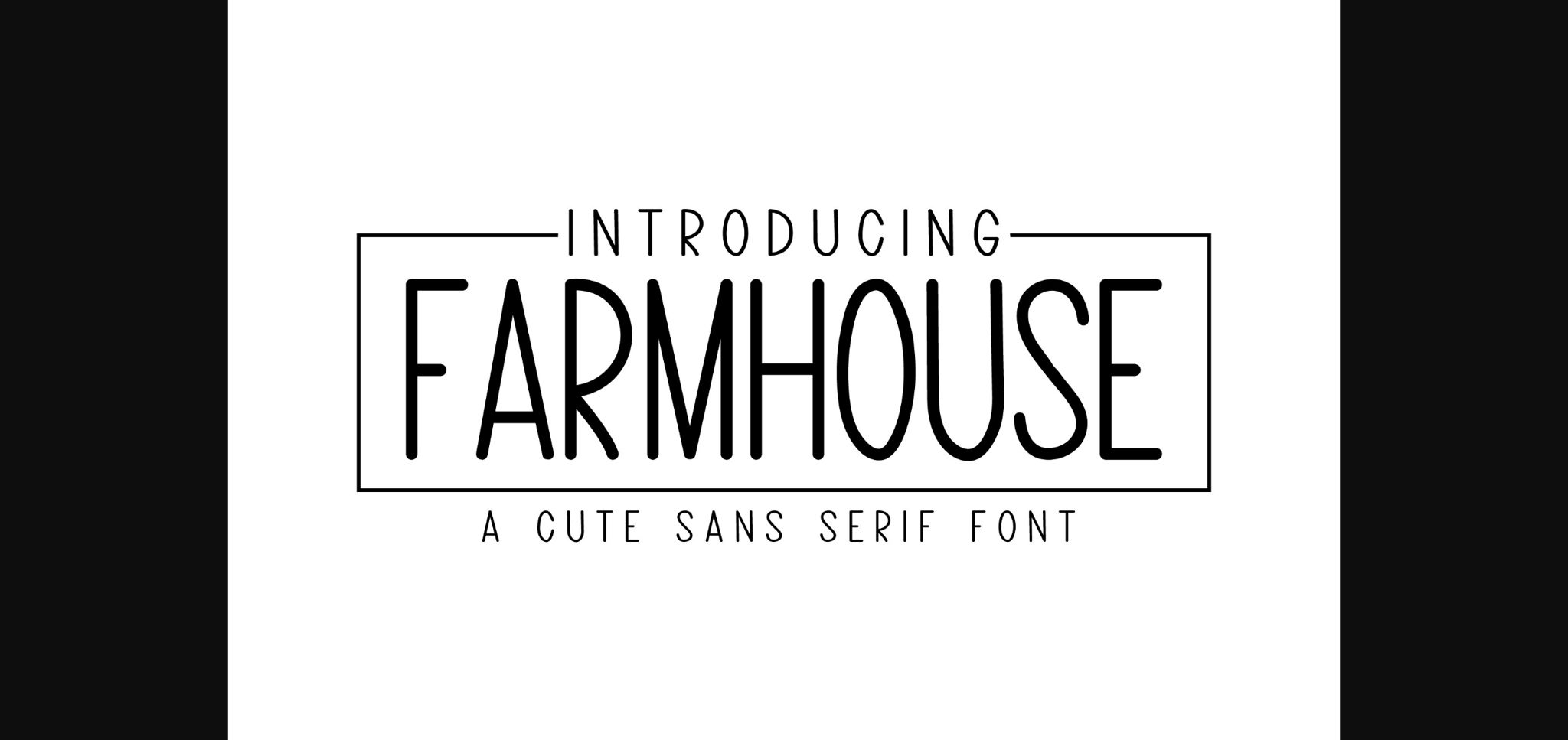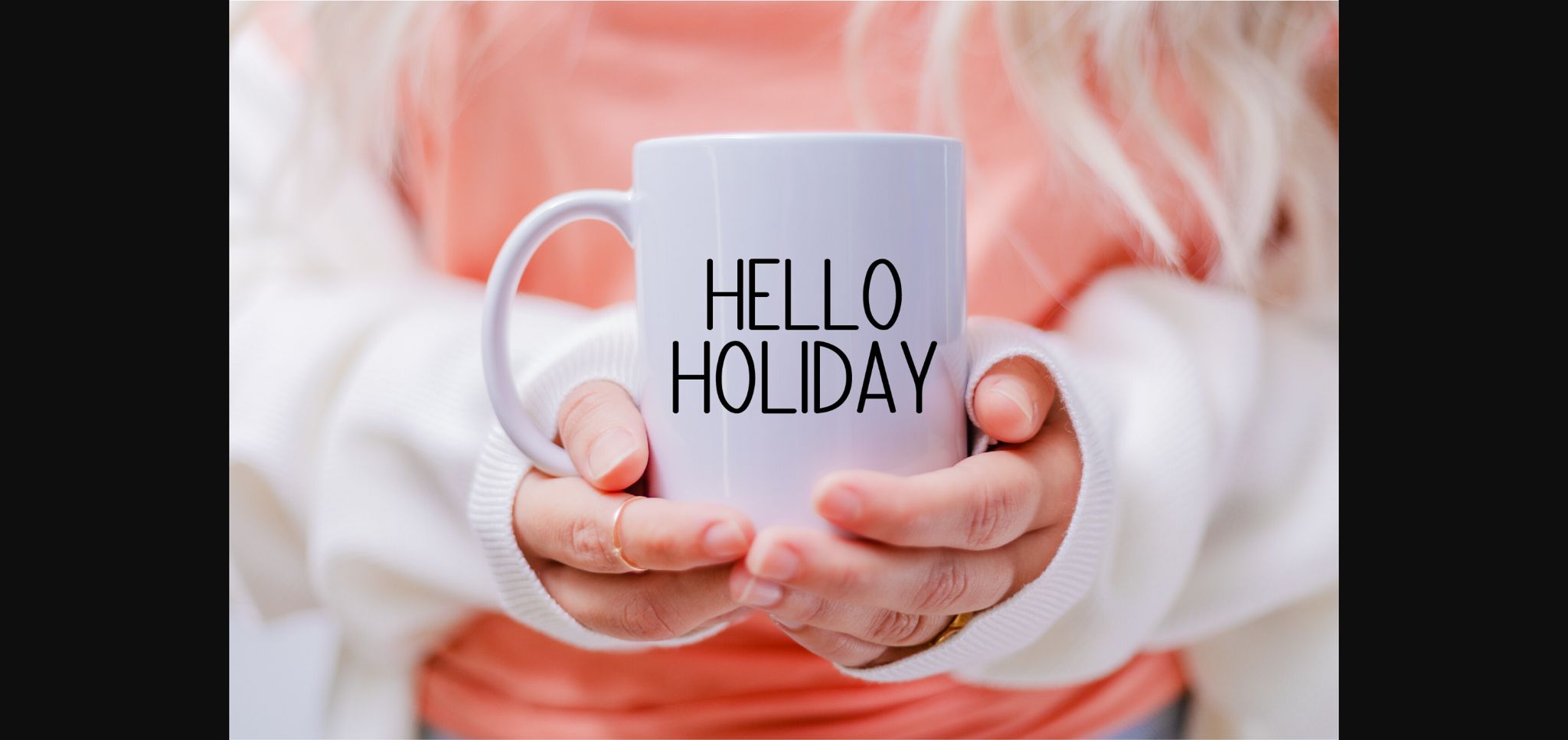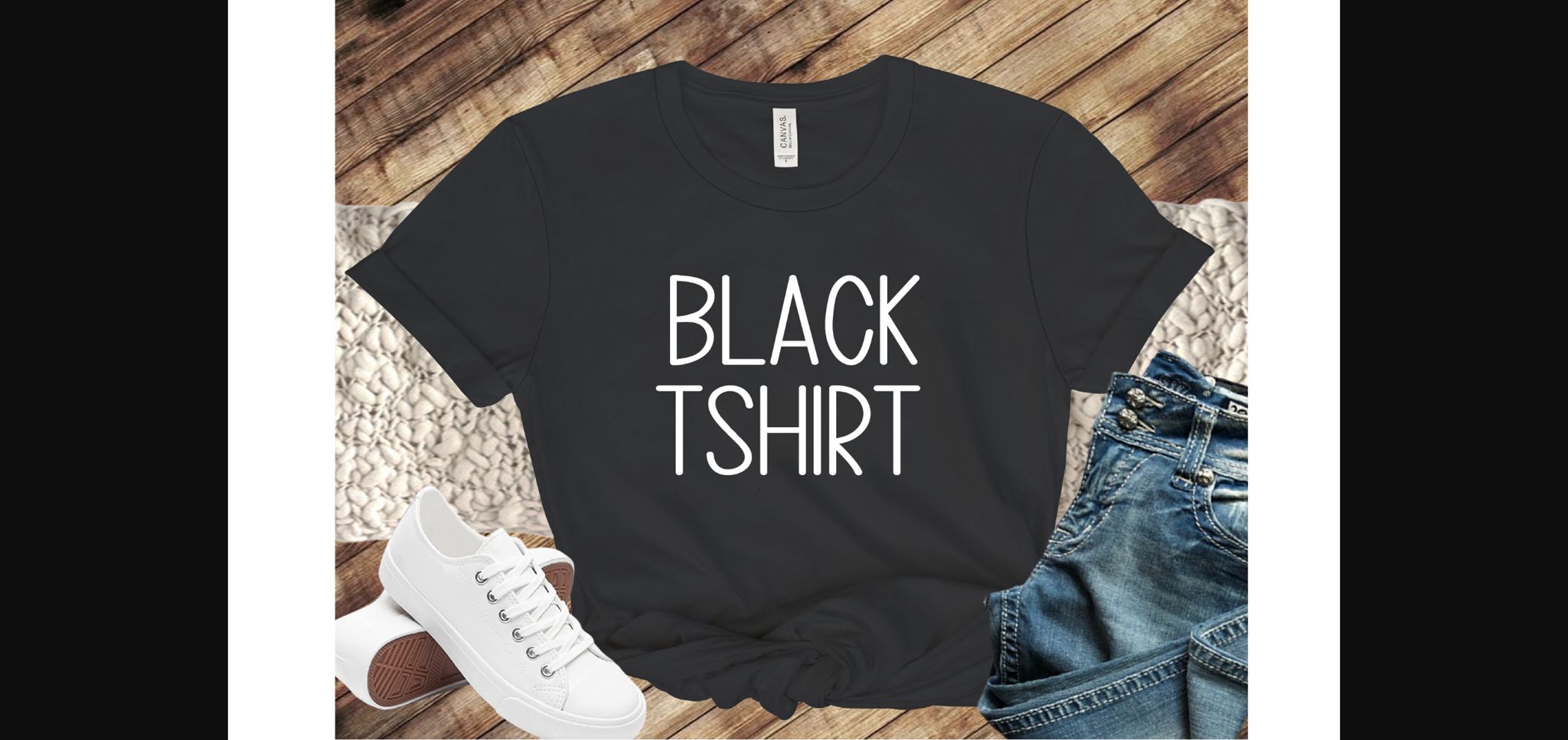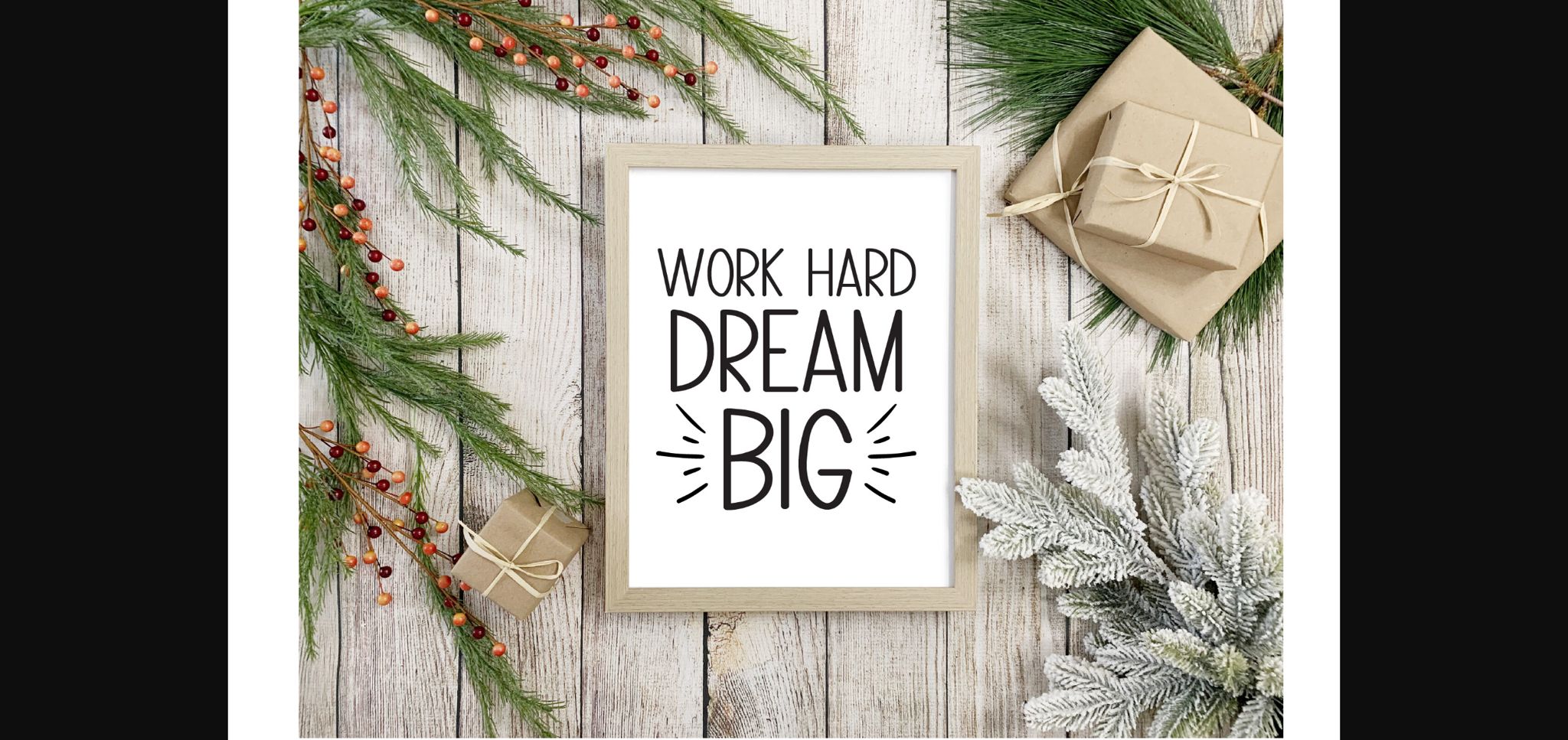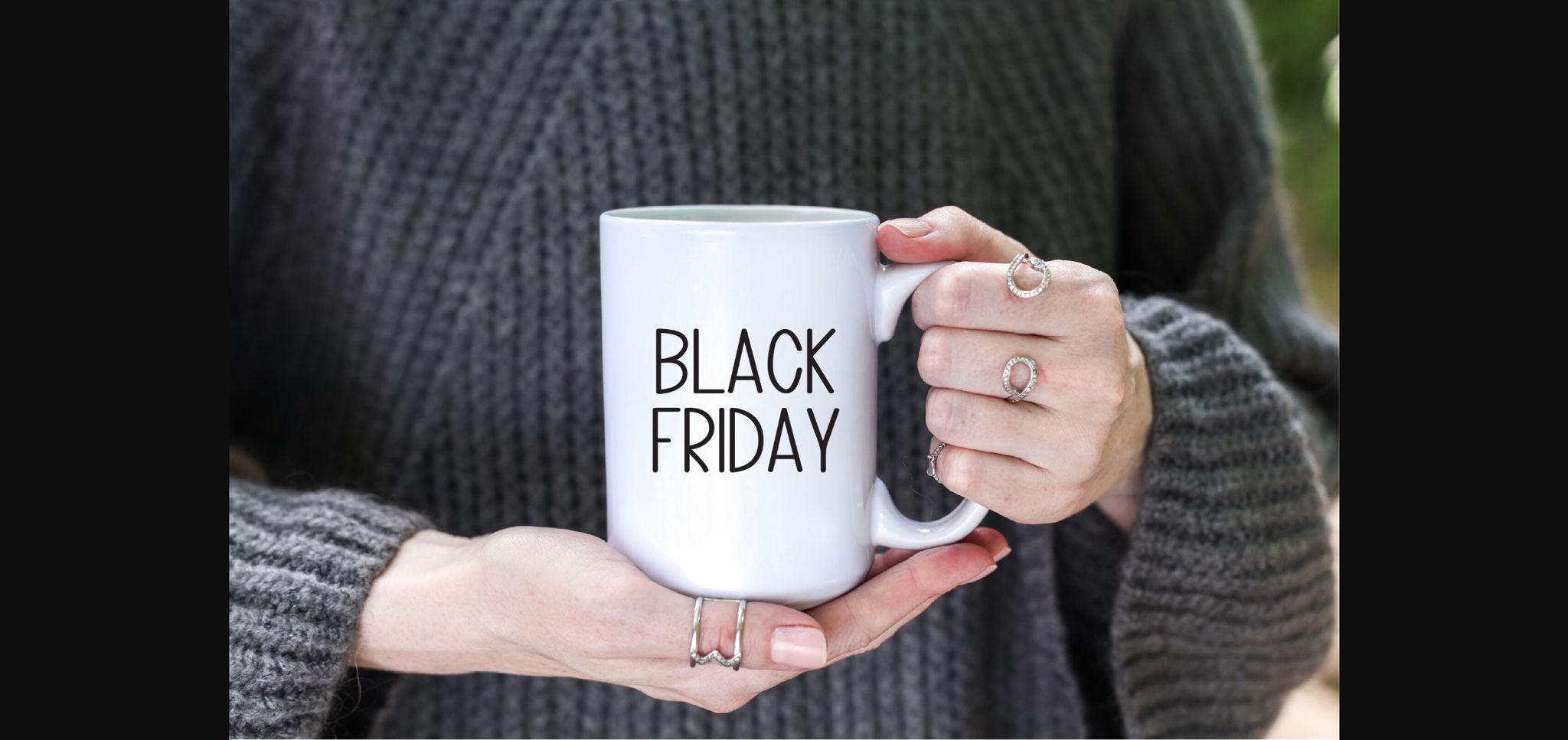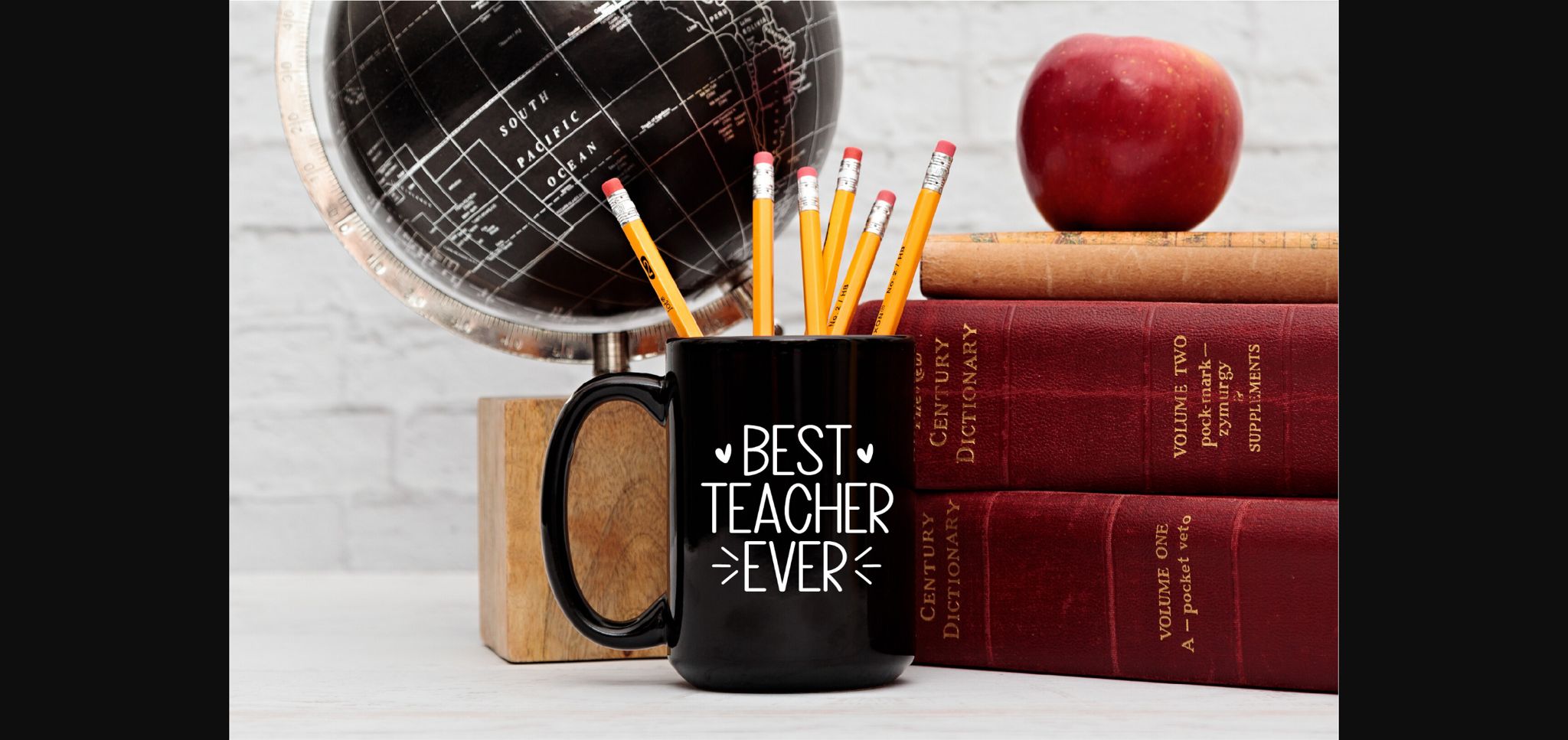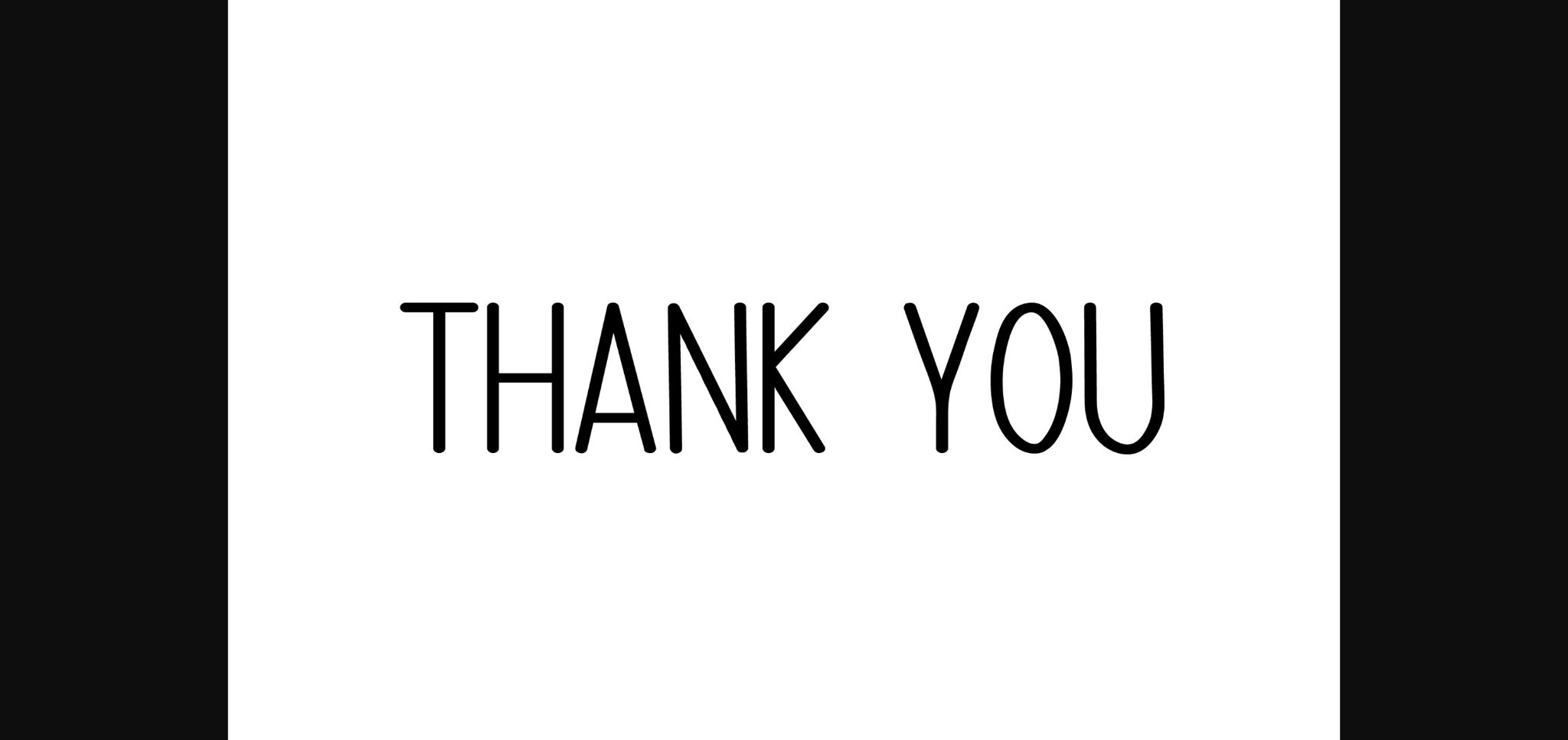
HomeSans Serif FontsFarmhouse Font Sans Serif Fonts Farmhouse Font FacebookXPinterestWhatsApp 1 of 9 ... Farmhouse Font Poster 2... Farmhouse Font Poster 3... Farmhouse Font Poster 4... Farmhouse Font Poster 5... Farmhouse Font Poster 6... Farmhouse Font Poster 7... Farmhouse Font Poster 8... Farmhouse Font Poster 9... About Farmhouse Font Farmhouse is a simple sans-serif font designed for a clean retro look. With its vintage balanced proportions, this font is perfect for creating a minimalist aesthetic in Tattoos, logos, web design, and branding. DOWNLOAD NOW People also explored Rosarie Font Sailendria Font Ruffian Rose Font Villa Font Ladybloom Font Chocolate Font Always Font Dear Jane Script Font Drawing Font 282 0 TagsFarmhouse Font Previous articleGoveca FontNext articleStylish Font LEAVE A REPLY Cancel reply Comment: Please enter your comment! Name:* Please enter your name here Email:* You have entered an incorrect email address! Please enter your email address here Website: Save my name, email, and website in this browser for the next time I comment. Personal Use Free Sunflower Personal Use Free Read more about this font Penelope Brush Script Font Personal Use Free Read more about this font Ailand Personal Use Free Read more about this font Good Luck Personal Use Free Read more about this font BLOG Free Fonts Risk: Why Free Fonts Can Be Dangerous for Designers Free Fonts Risk: Why Free Fonts Can Be Dangerous for Designers Using free fonts is a common practice in web and graphic design. However, the... To increase your work productivity, choose the most readable fonts. Exploring Font Trends The 10 Best Handwriting Fonts to Add Personality to Your Designs